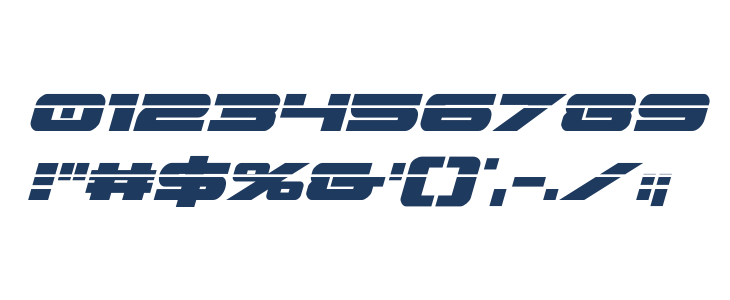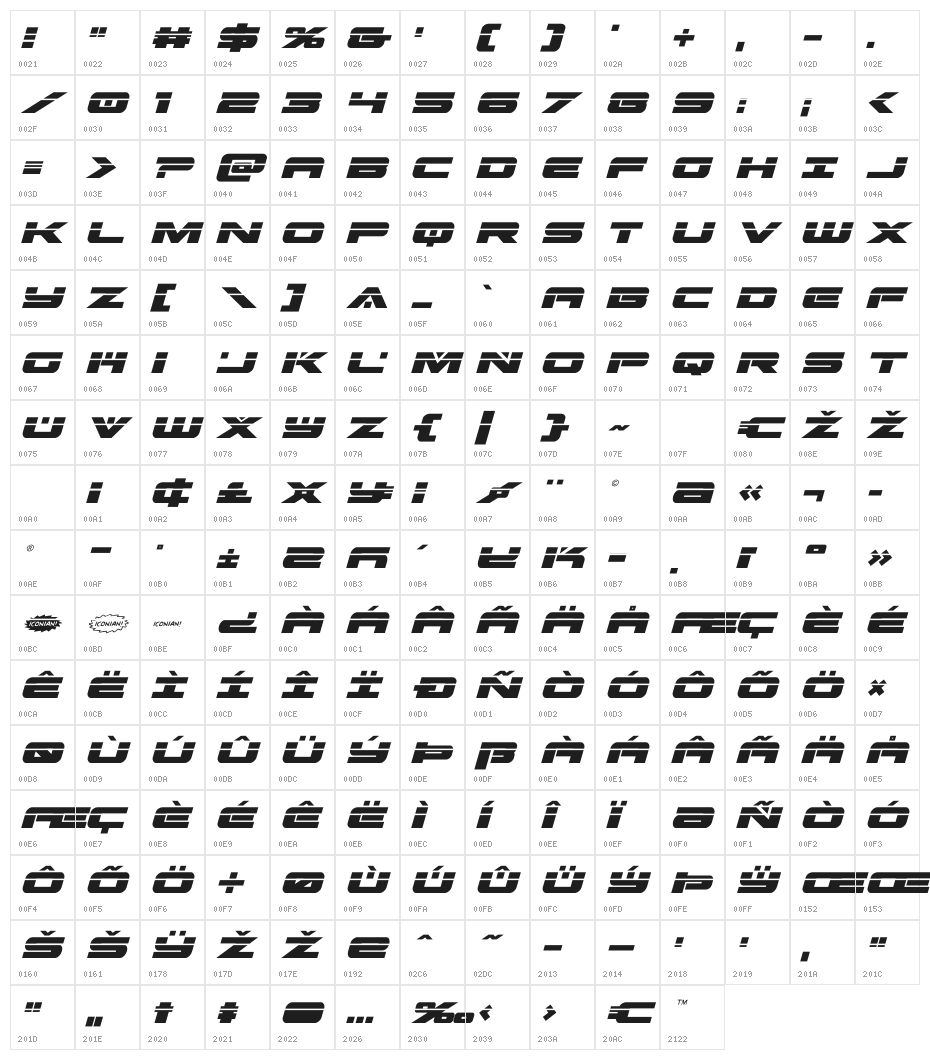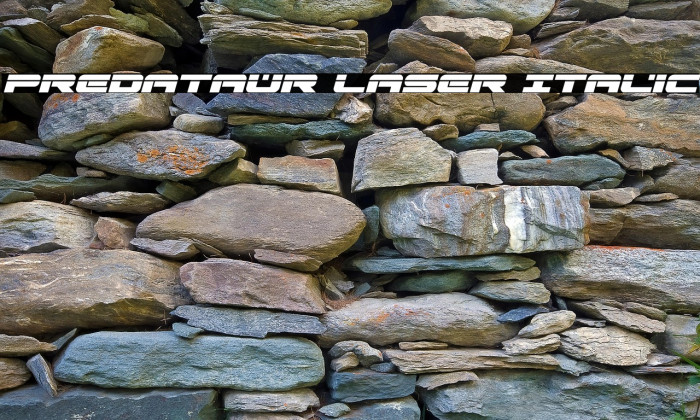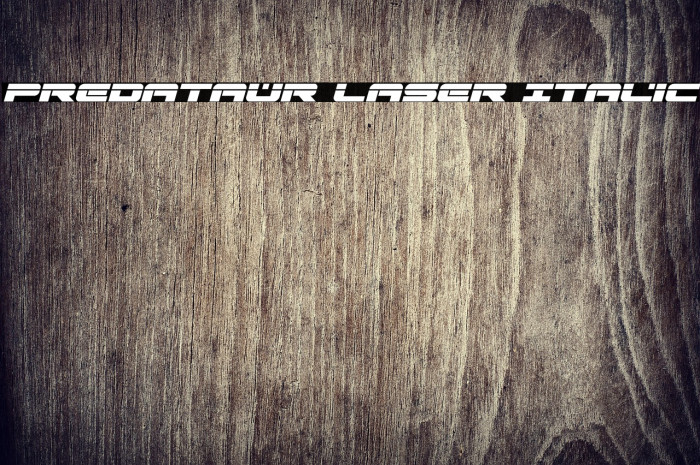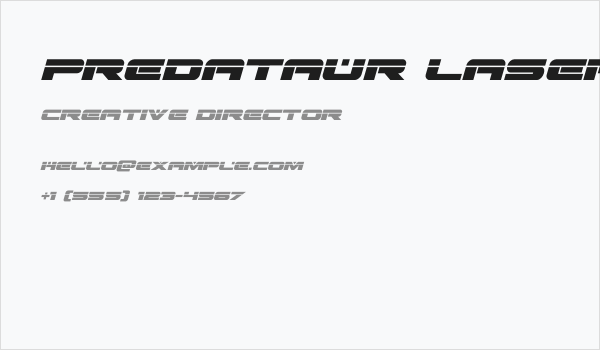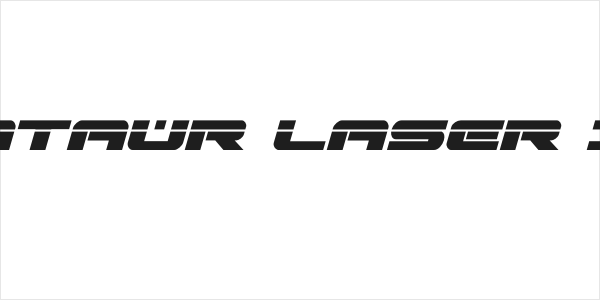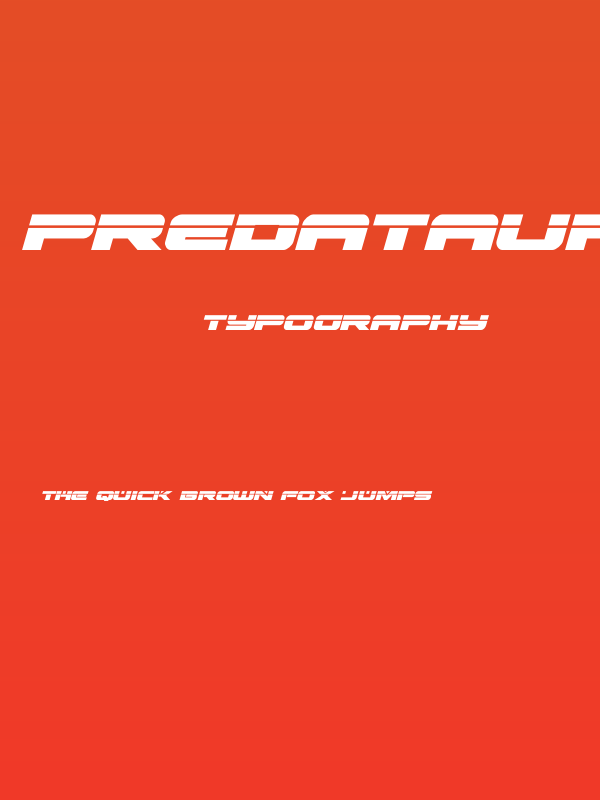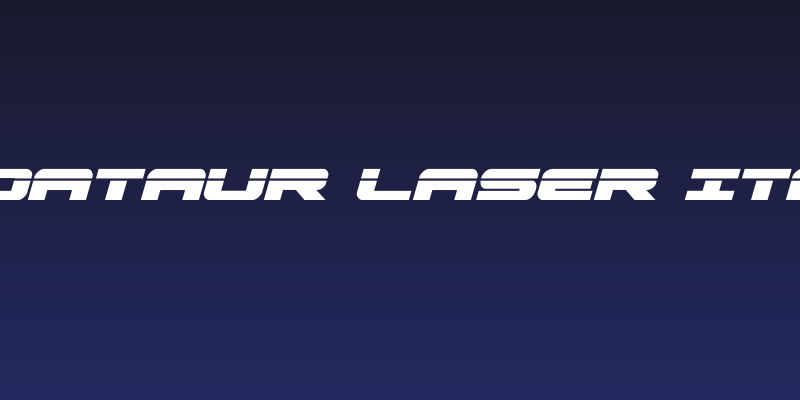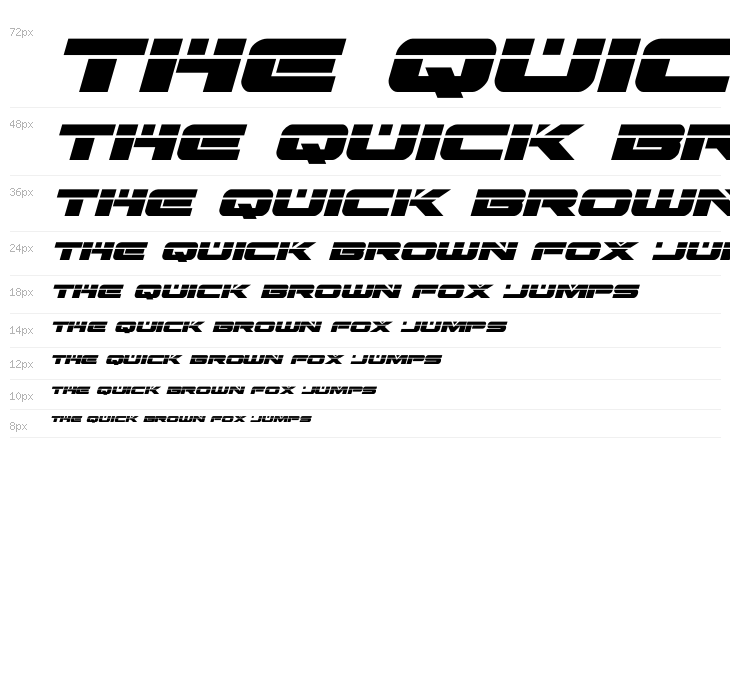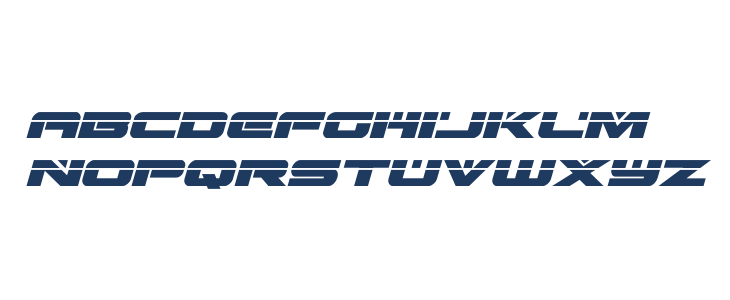
Predataur Laser Italic Font
Predataur Laser Italic Description
This font features a futuristic and dynamic design, characterized by its sharp angles and sleek lines. The letters are italicized, giving a sense of motion and speed, reminiscent of high-tech or sci-fi themes. The bold weight and expanded width enhance its strong visual impact, making it ideal for attention-grabbing headlines or branding. The character spacing is tight, contributing to its compact and cohesive appearance. The high contrast between thick and thin strokes adds to its modern and edgy style, making it suitable for projects that require a bold and innovative look.